It is often recommended to include \usepackage[T1]{fontenc}, but I have been hit by the following difference:
\documentclass{article}
\usepackage[T1]{fontenc}
\begin{document}
texttt: \texttt{-->}
verb: \verb+-->+ \end{document}
Without fontenc both render the same -->. But with fontenc the first is rendered as ->.
Are there other such differences to expect?
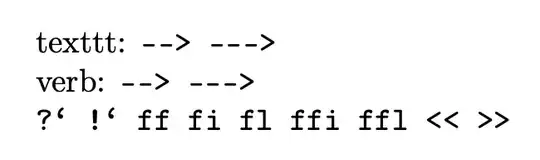
In my opinion, it was an oversight when the EC fonts were developed.
You can disable the ligatures (in pdflatex) with microtype.
\documentclass{article}
\usepackage[T1]{fontenc}
\usepackage{microtype}
\DisableLigatures[-,?,!,<,>]{encoding=T1,family=tt*}
\begin{document}
texttt: \texttt{--> --->}
verb: \verb+--> --->+
\texttt{?! ff fi fl ffi ffl << >>}
\end{document}
Without the \DisableLigatures line you'd get
With XeLaTeX or LuaLaTeX there is no problem, because the monospaced font is loaded without TeX ligatures enabled.
\documentclass{article}
\usepackage{fontspec}
\begin{document}
texttt: \texttt{--> --->}
verb: \verb+--> --->+
\texttt{?! ff fi fl ffi ffl << >>}
\end{document}
• @false beramono has no “hyphen ligatures”, as far as I can see. Depending on your needs, you may want to disable the “guillements ligatures”, though. – egreg Sep 16 '23 at 08:49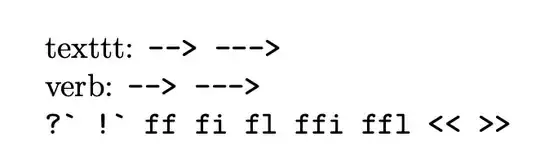